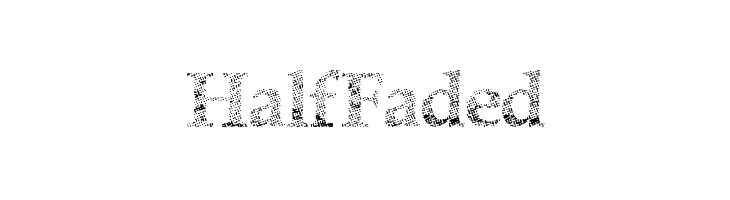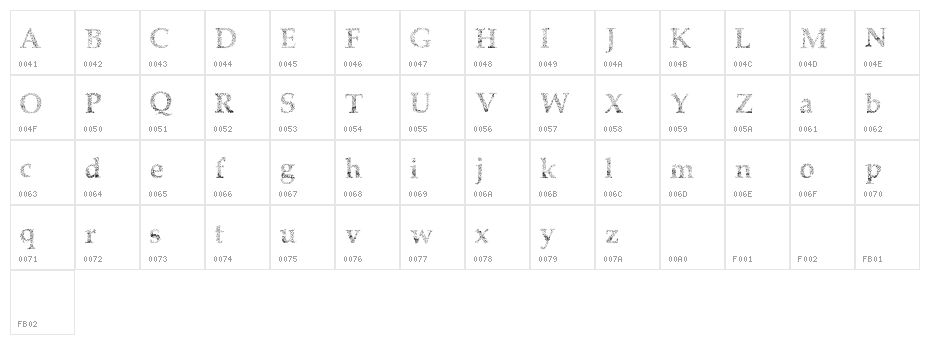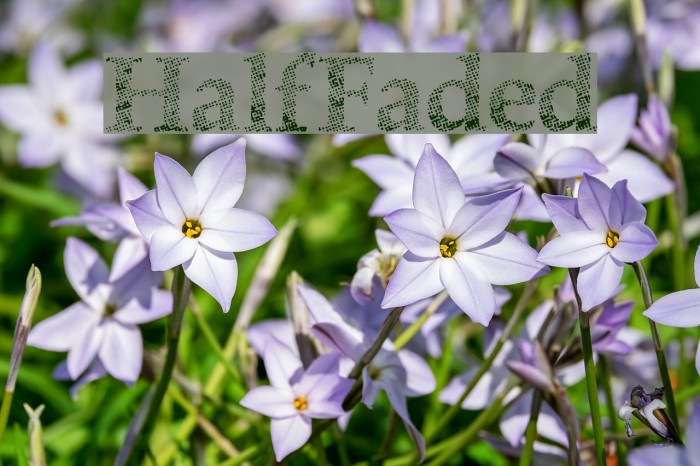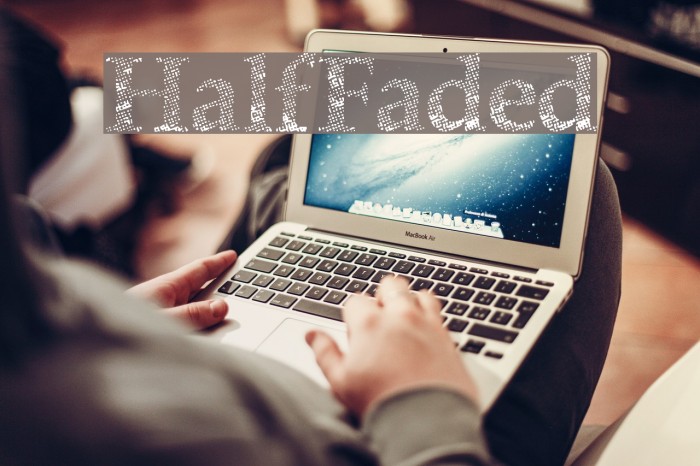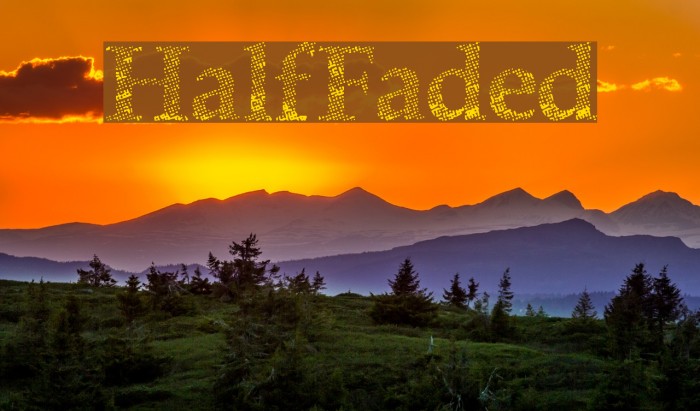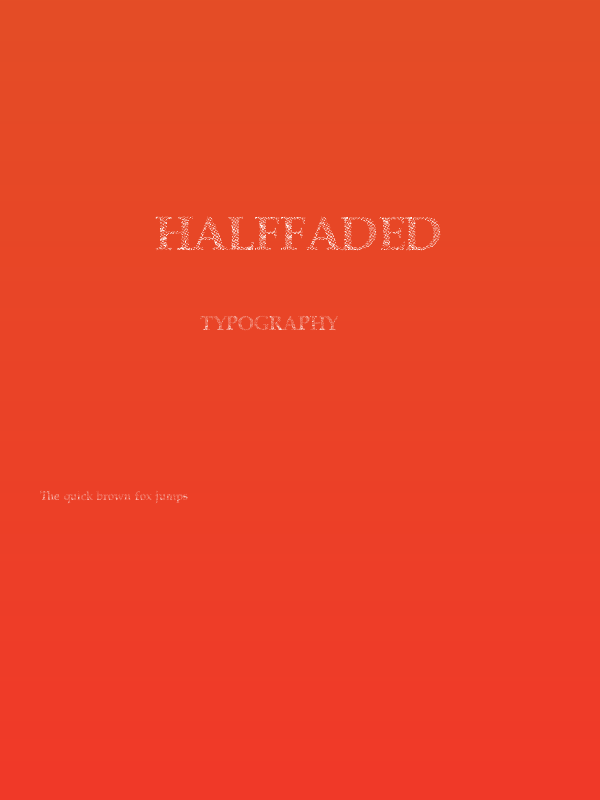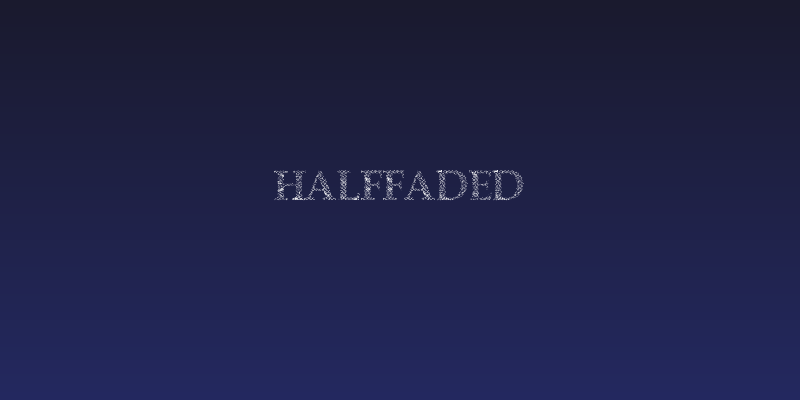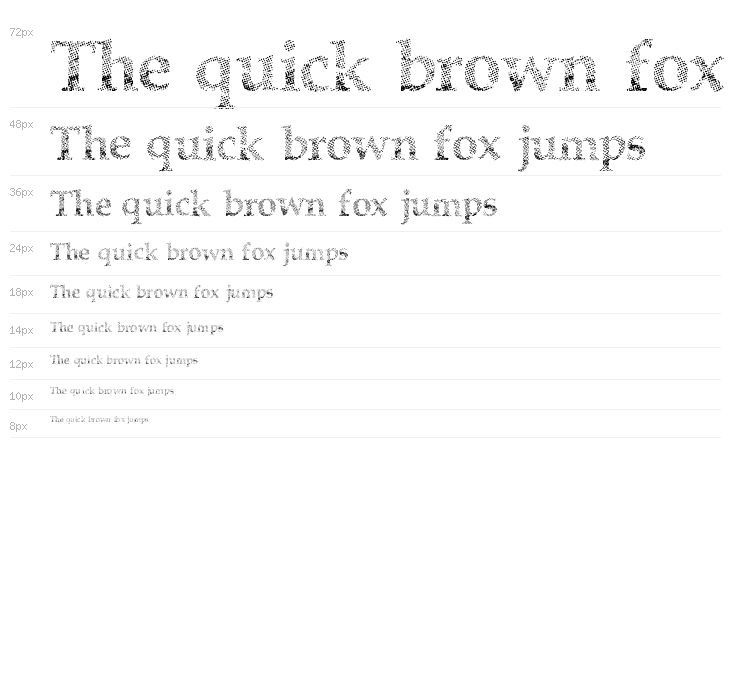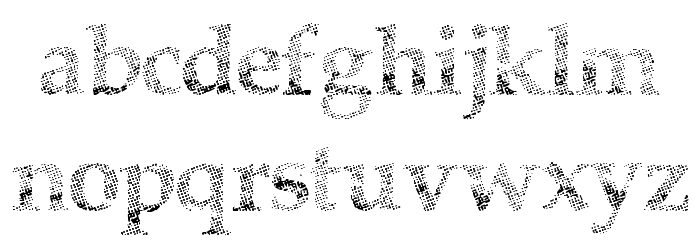
HalfFaded Font
HalfFaded Description
This font features a unique, distressed appearance with a dotted texture that gives it a half-faded look. The characters are serif, with a classic structure that is partially obscured by the fading effect. The uppercase and lowercase letters maintain a traditional serif form, but the texture adds a modern twist. The numbers and special characters follow the same design, ensuring consistency throughout the font. This style is particularly eye-catching and can add a vintage or grunge aesthetic to any project.
| Proposed Projects | Ideal for vintage-themed posters, album covers, or any design requiring a grunge or distressed look. |